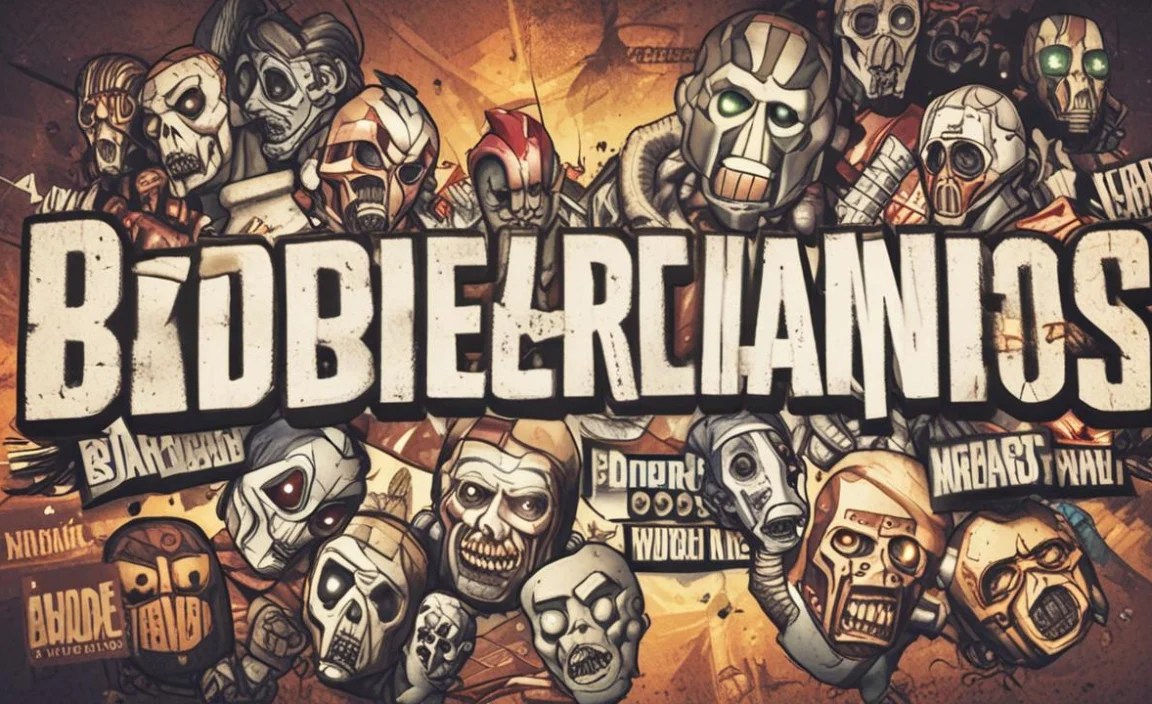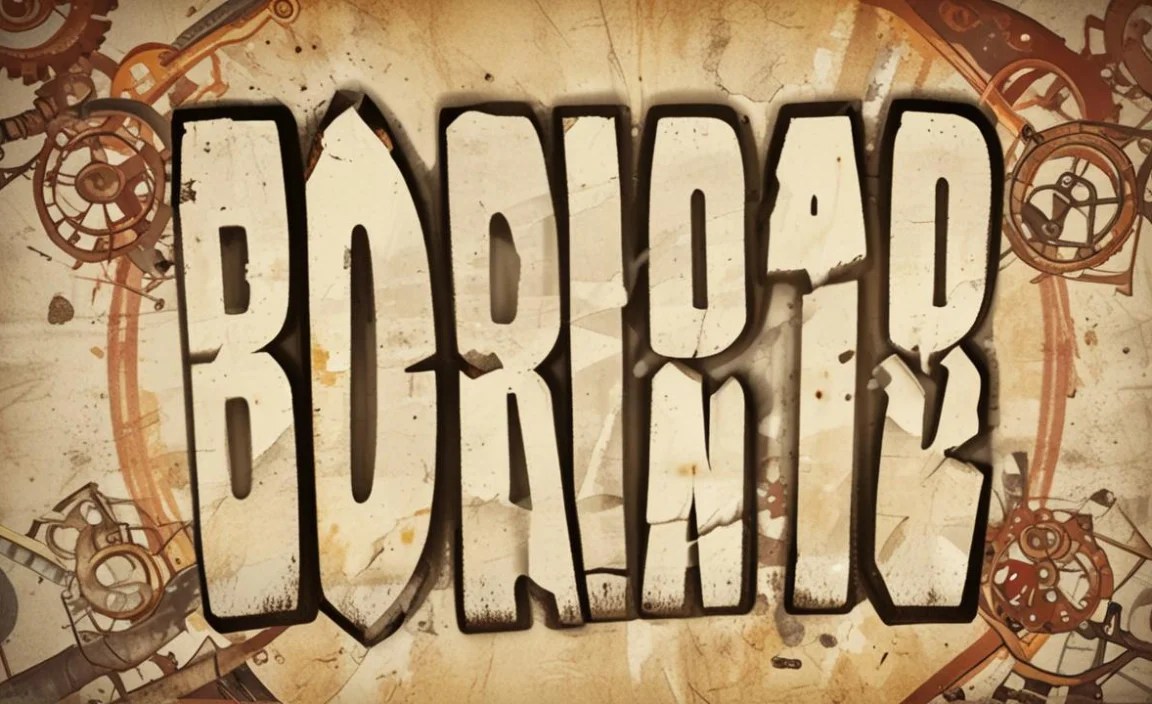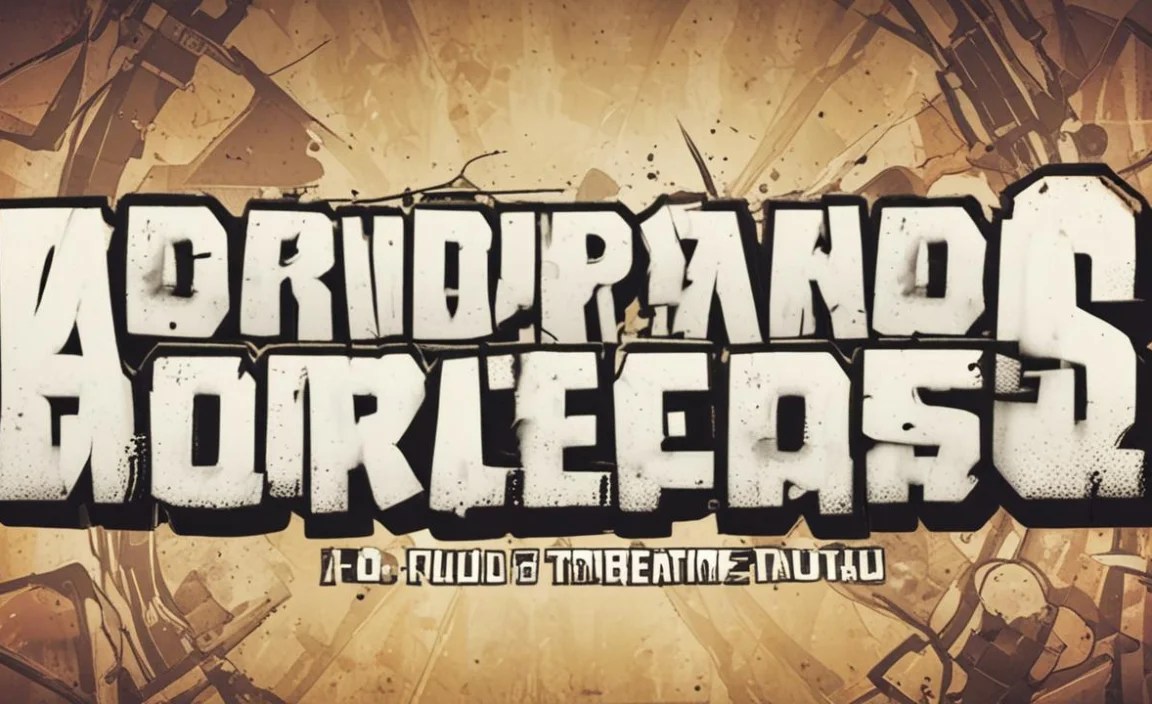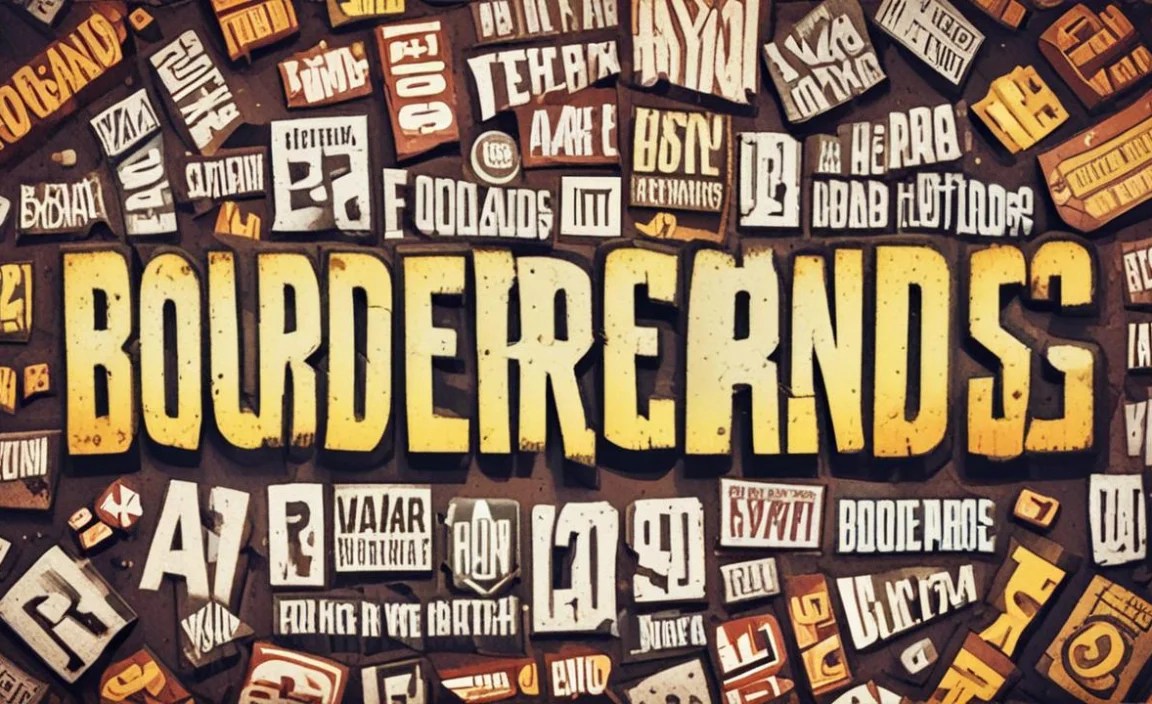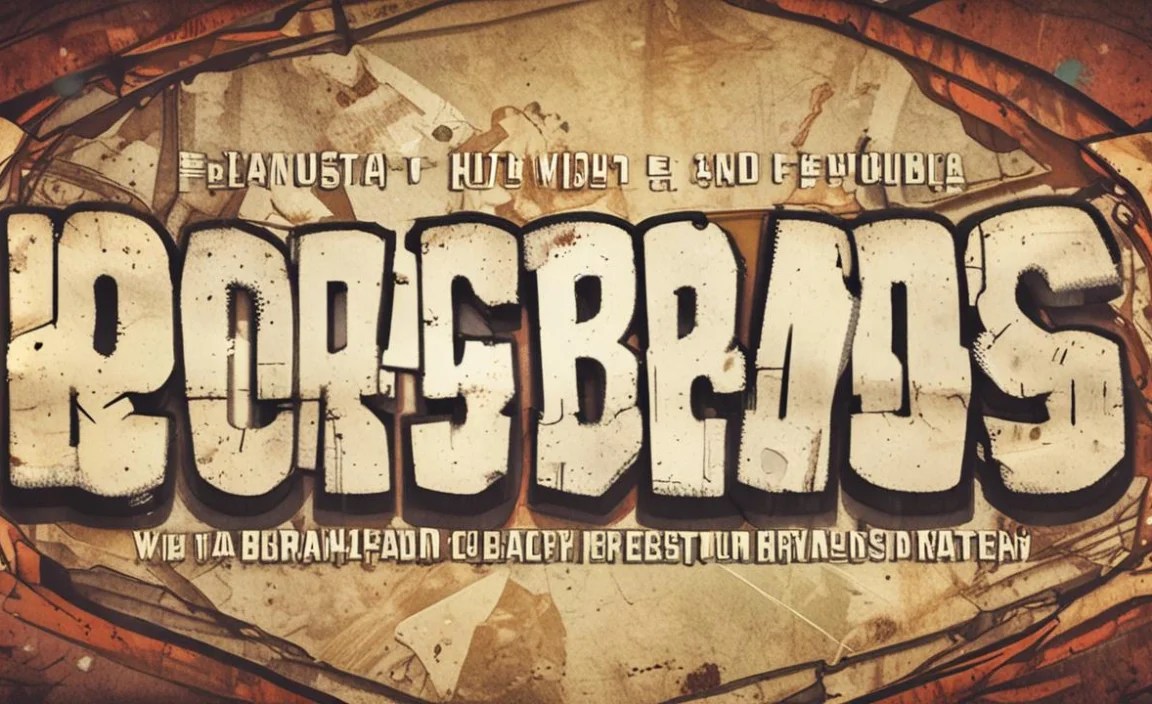
The Borderlands font is an iconic typeface widely recognized for its strong, bold style that embodies the energy and excitement of the Borderlands game series.
The font is inspired by the logo design of the game, which was first released in 2009 by Gearbox Software. Designed by Fred Lambert, the font is based on the Compacta family, a condensed sans-serif style known for its clean and impactful appearance.
Borderlands Font Information
| Name | Borderlands Font (Compacta Bold) |
| Style | Bold, Condensed |
| Designer | Fred Lambert |
| Type | Sans-Serif |
- Compacta Regular
- Compacta Bold
Where The Borderlands Font Is In Use
- Game Branding: Featured in the logo and promotional materials of the Borderlands game series, including its cover art.
- Websites: Used by fans and content creators for game-related websites and fan art.
- Game Themes: Perfect for designing game-related content, including Borderlands mods and guides.
- Gameplay: Ideal for creating user-generated content like gameplay thumbnails or gameplay videos.
- Merchandise: Incorporated in the branding of Borderlands merchandise, such as t-shirts, posters, and accessories.
- Social Media: Popular for use on platforms like Reddit, Twitter, and Facebook, especially for fan-created posts and discussions about the game.
- Personal Projects: Can be used by players for creating personalized Borderlands-themed projects, including logos and title screens.
- Bebas Neue (for headings) with Roboto (for body text): This combination provides the strong, bold aesthetic of the Borderlands font while maintaining readability.
- Compacta Bold paired with Lato: Lato brings a clean, modern feel to balance the heavy look of Compacta Bold.
The Borderlands font is a dynamic and bold typeface that captures the essence of the game’s thrilling and action-packed world. Whether you’re designing fan art, merchandise, or gameplay videos, this font allows you to channel the Borderlands aesthetic effectively. Its accessibility, free license for commercial use, and stylish look make it a top choice for both designers and fans of the series.
1.What Is The Borderlands Font?
The Borderlands font is a bold, condensed sans-serif typeface inspired by the game’s logo. It is based on Compacta Bold designed by Fred Lambert.
3.Where Can I Use The Borderlands Font?
It can be used for game-related projects, merchandise, websites, fan art, and social media posts.
5.What Are Some Similar Fonts To The Borderlands Font?
Fonts similar to the Borderlands font include Compacta, Impact, and Bebas Neue.